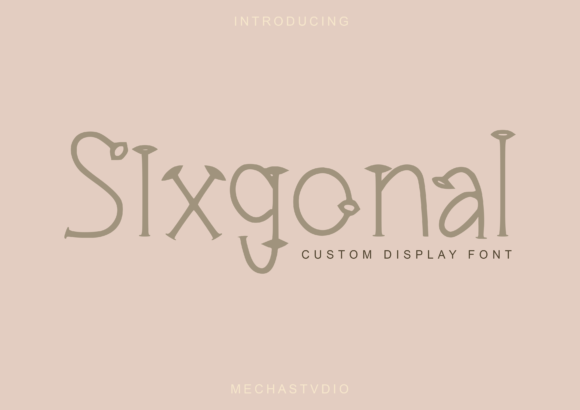
Meet Sixgonal, a captivating display font that breathes life into your creative pursuits. Designed to make a statement, Sixgonal is the perfect weapon in your typographic arsenal, crafted to turn heads and elevate your designs to new heights.
Unleash your inner artist and let your creativity run wild as you explore the endless possibilities that Sixgonal presents. Watch as your logos, branding materials, stationery, poster designs, and social media posts transcend the ordinary and assume an aura of distinction.
With Sixgonal by your side, your designs will radiate confidence and leave a lasting impression on your audience. Its unique character adds a touch of whimsy and playfulness, captivating attention and sparking conversations.
- Simplicity with a Twist: Sixgonal's clean lines and unpretentious style create an effortlessly elegant look, while its subtle curves and playful angles inject a touch of intrigue and personality.
- Versatility Unleashed: Whether you're crafting logos, designing brochures, or creating eye-catching social media graphics, Sixgonal seamlessly adapts to your vision, effortlessly elevating your projects to new levels of sophistication.
- Timeless Appeal: Sixgonal transcends fleeting trends and fads, boasting a timeless charm that will keep your designs looking fresh and relevant for years to come.